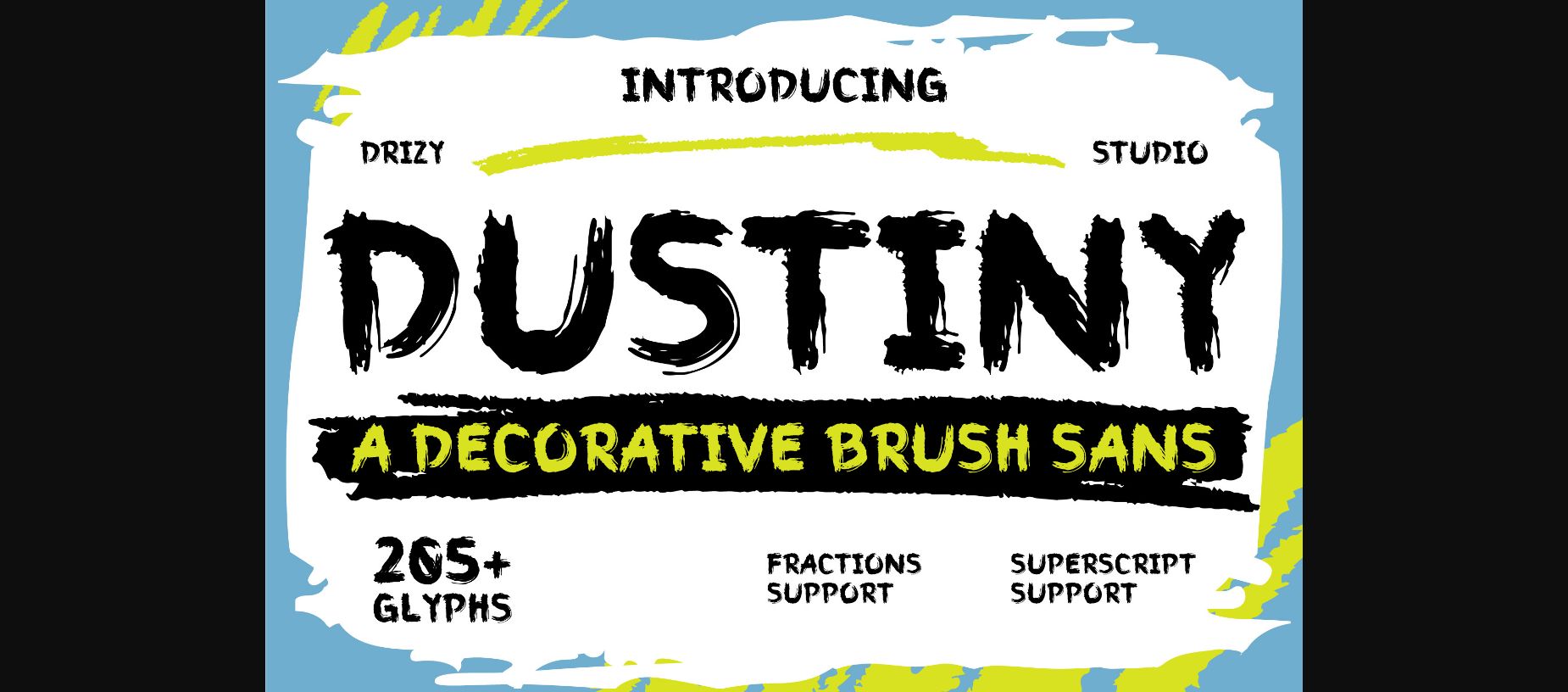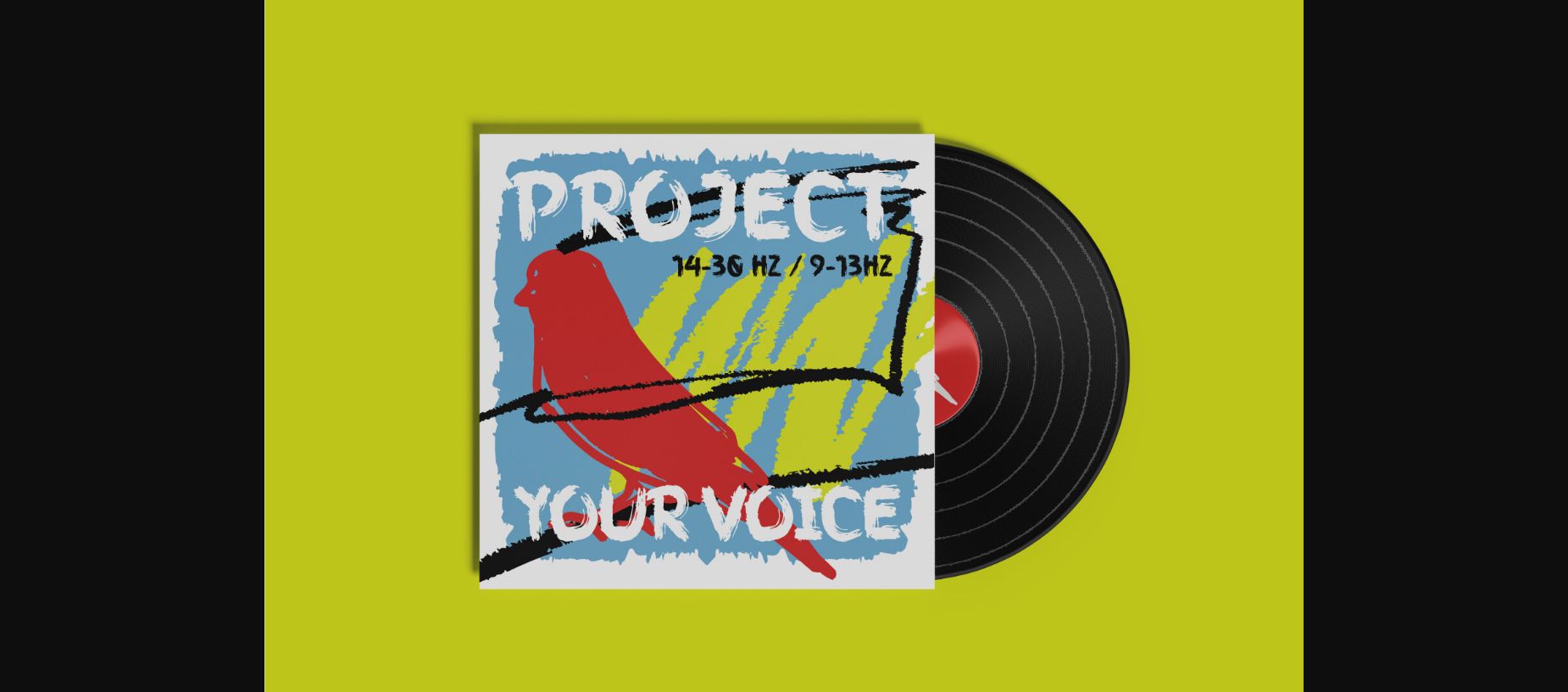
About Dustiny Font
“Dustiny” emerges as an extraordinary font that marries the raw energy of decorative brush strokes with the edgy essence of grunge pointillism, all within the framework of a sans serif design. This font is a bold statement piece, crafted for designers who dare to make their projects stand out with depth, texture, and a distinctive voice. It’s not just a typeface; it’s an art form that brings a canvas of emotions and styles to the digital and print world.